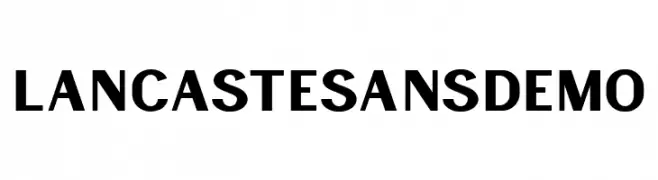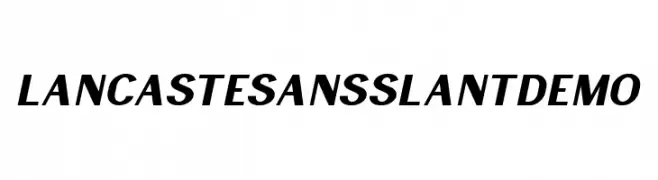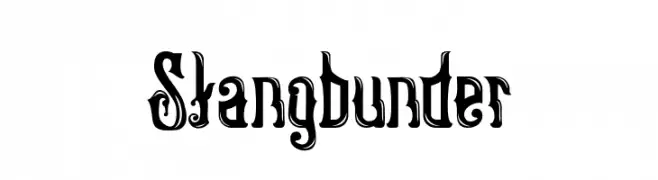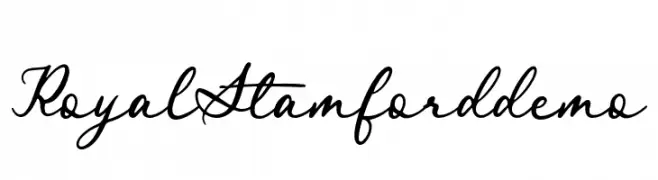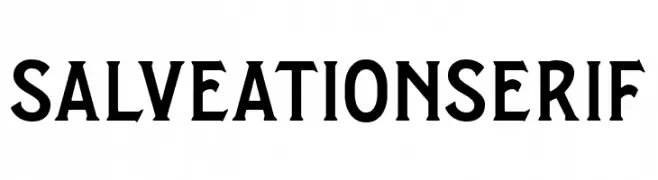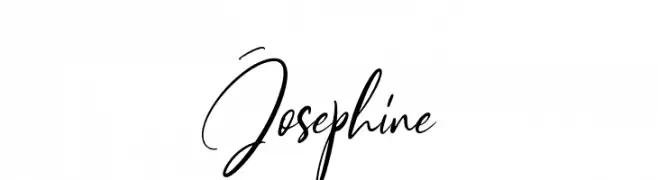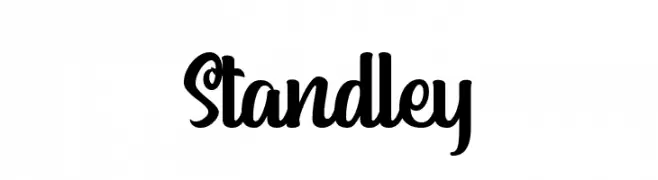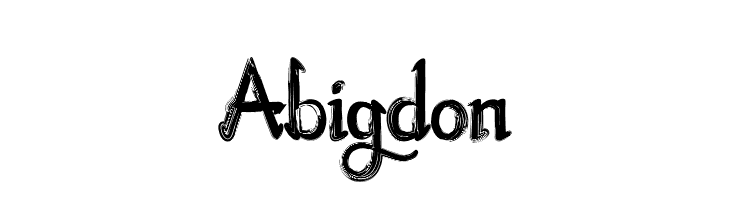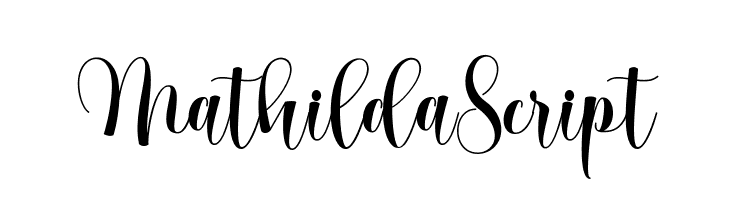
A textured, script-style font with a vintage, handwritten appearance.
A bold, flowing script font with dynamic, handwritten elegance.
A bold, modern sans-serif font with a geometric and clean design.
A modern, slanted sans-serif font with bold, clean lines and a dynamic appearance.
A classic and elegant cursive script font with flowing letterforms.
An ornate, vintage-style font with intricate curls and flourishes.
A graceful script font with fluid, connected strokes and elegant curves.
A bold, modern serif font with elegant, well-defined characters.
An elegant and expressive handwritten font with fluid, dynamic strokes.
A bold, flowing script font with elegant curves and playful flourishes.